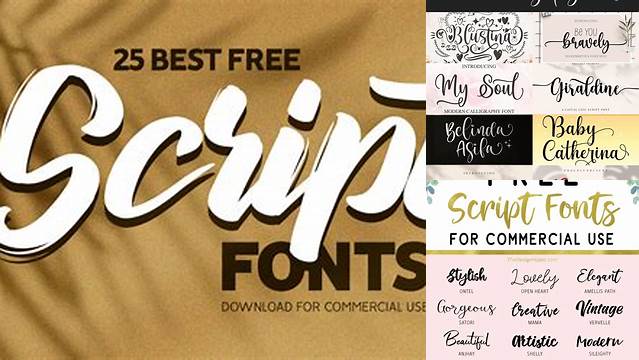
Download Amazing Free Script Fonts Today!
Hey guys! Looking for some awesome fonts to spice up your designs? You've come to the right place! I'm talking about free script fonts – those elegant, flowing, and oh-so-stylish typefaces that can transform your projects from drab to fab. Whether you're a seasoned designer, a budding enthusiast, or just someone who loves a good font, this guide is your treasure map to the best free script fonts the internet has to offer. We'll dive into where to find them, how to use them, and even some tips to make your designs pop. So, buckle up, buttercups, because we're about to embark on a font-tastic adventure! Let's get started and unlock the world of beautiful free script fonts ready for your download!
Choosing the Right Free Script Font for Your Project
Picking the perfect free script font for your project is a bit of an art form, but it's also super fun! The right font can make or break your design, so let's talk about how to choose wisely. First, consider the mood or tone you want to convey. A classic, elegant script might be perfect for a wedding invitation or a high-end brand, while a more playful, handwritten script could be great for a children's book or a casual social media post. Think about your target audience, too. Are you trying to reach a young, hip crowd or a more mature audience? The font should resonate with them. Also, think about readability. Script fonts can be beautiful, but they can also be difficult to read, especially in large blocks of text. Make sure your chosen font is legible, especially if you're using it for body text. Experiment with different fonts! Download a few options and try them out in your design. See how they look with your other design elements, like colors, images, and layout. Don't be afraid to mix and match fonts, but keep it simple. Using too many different fonts can make your design look cluttered. Consider the specific context of your project. Is it a logo, a website header, a poster, or something else? The font choice will depend on the project. Once you start to narrow it down, keep in mind that some script fonts are better for headlines, while others work well for shorter text snippets. Ultimately, the best font is the one that complements your design and helps you achieve your goals. So, guys, take your time, have fun, and trust your gut!
Matching Free Script Fonts with Other Fonts for Design Harmony
One of the trickiest aspects of design, particularly when working with free script fonts, is font pairing. It's about finding the right combination of fonts that complement each other and create a cohesive look. The goal is to create visual interest without overwhelming the viewer. Think of your script font as your star player, and the other fonts as the supporting cast. A classic approach is to pair a script font with a clean, sans-serif font. The script font adds elegance and personality, while the sans-serif provides readability and a modern touch. This combination works well for many projects. Another option is to pair a script font with a serif font. This can create a more traditional or sophisticated feel. Just be sure the serif font isn't too similar to the script font; you want contrast, not a clash. Another important aspect is size and weight. Use your script font for headlines, titles, and accents. Pair it with a clear and legible font for body text. This improves readability. Avoid using the same script font for everything. It's usually best to limit your use of the script font to one or two instances in your design. Use a font pairing tool to help you. There are many free online resources that can suggest font pairings based on your chosen script font. Lastly, always test your pairings. See how they look in your design and make sure they work well together. Experiment, and don't be afraid to try different combinations until you find the perfect match.
Utilizing Free Script Fonts in Logo Design
Free script fonts are often a popular choice for logo design, and for good reason! They can add a touch of elegance, personality, and sophistication that can make a brand stand out. However, using a script font in a logo requires careful consideration. Firstly, choose a script font that matches your brand's identity. A flowing, elegant script might be perfect for a luxury brand, while a more playful, handwritten script could be a good fit for a creative business. Make sure your chosen script font is legible, especially at smaller sizes. Your logo needs to be recognizable at various sizes, from a business card to a website header. Make sure the font is easy to read. Simplify the script font if needed. Logos often benefit from simplicity. If your script font is too intricate, it could become difficult to read. You can simplify the design by removing unnecessary flourishes or simplifying the letterforms. Consider the kerning. Kerning is the space between letters. Adjusting the kerning can improve the appearance of your logo, especially with script fonts, which can sometimes have uneven spacing. You can use kerning in your design software. Test your logo in different contexts. See how it looks on various backgrounds, in different sizes, and in different colors. Make sure it's versatile and adaptable. Remember to check the license of the free script font you're using. Make sure the font is allowed for commercial use if you're creating a logo for a business. If you're unsure, it's always best to seek professional design advice or consider commissioning a custom logo.
Best Practices for Pairing Free Script Fonts with Other Design Elements
Designing with free script fonts is a balancing act. The right font pairings are essential, but so are the other design elements. Let's dive into some best practices to ensure your designs look polished and professional. First, consider the color palette. The colors you choose will set the tone of your design, so make sure they complement your script font. A classic combination is a script font in a darker color (like black, navy, or deep green) paired with a lighter background color. Ensure you pick the right background color. Use high contrast for readability. The colors should make your text stand out. Also, consider the images. Use images that match the style of your script font. If you're using an elegant script, choose high-quality, professional images. If you're using a more playful script, consider fun and creative images. Also, consider the layout. The layout of your design should be clean and easy to navigate. Use a clear hierarchy to guide the viewer's eye. This will help draw attention to your script font. Another thing is whitespace. Don't be afraid of whitespace! It helps to create a clean and uncluttered design. It also helps your script font stand out. Whitespace, or negative space, gives the design breathing room. Lastly, keep it simple. Don't overcrowd your design. Sometimes, less is more. A simple design with a well-chosen script font can be incredibly effective. Remember to experiment and don't be afraid to try different combinations until you find something that works well. Keep your designs clean and simple.
Creating Visual Hierarchy with Free Script Fonts
Creating a visual hierarchy is crucial for guiding the viewer's eye and making your designs easy to understand, especially when using free script fonts. Visual hierarchy refers to the way you arrange design elements to indicate their importance. Here's how to use free script fonts to establish a strong visual hierarchy. Use your script font for headlines and titles. Because script fonts are often eye-catching and distinctive, they're perfect for drawing attention to the most important information. Make your headlines large and prominent, and use a different font style or weight to help them stand out. Make headlines stand out even more. Vary the size, weight, and color of your script font. Experiment with different styles to create contrast and visual interest. Ensure you have a consistent layout. Create a clear and consistent layout. Use headings, subheadings, and body text to organize your content. Use the script font sparingly. Limit the use of your script font to headlines and titles. Using it for everything can make your design look cluttered and difficult to read. Use a different font for body text. Choose a clear, legible font for body text. This is essential for readability, and it will help to make your script font stand out even more. The contrast between the script font and the body text is important. Consider spacing. Use spacing and alignment to create visual structure. Increase the space around your headings and titles to make them more prominent. Test and iterate. Try different layouts and arrangements to see what works best. Look at other designs and take inspiration. Remember, the goal is to guide the viewer's eye and make your design easy to navigate and understand.
Leveraging Free Script Fonts for Branding and Marketing Materials
Free script fonts can be powerful tools for branding and marketing materials, adding a touch of personality and elegance that can make your brand memorable. When using script fonts for branding, consistency is key. Use your chosen script font consistently across all your marketing materials, including your logo, website, social media posts, and print materials. This will help create a cohesive and recognizable brand identity. Make sure the font matches your brand's identity. A classic, elegant script might be a good fit for a luxury brand, while a more playful, handwritten script could be a good fit for a creative business. Use your script font to create a strong first impression. Use it for your logo, headlines, and other key elements. Make sure your font creates visual interest and draws attention to the most important information. Use your script font strategically. Avoid using it for body text, where readability is essential. Instead, use it for headlines, titles, and other key elements. It's essential to ensure your font is legible and easy to read. Consider how it will look in various sizes and contexts. Use your script font to create a consistent brand voice. Use it to create a consistent brand voice that is unique to your brand. Test your marketing materials. See how they look on different platforms and in different formats. Make sure your script font works well in all situations. Be sure to adhere to licensing guidelines. If using a free script font, make sure you adhere to the licensing guidelines, especially for commercial use. Your brand must reflect your values. With these techniques, you can create amazing marketing materials.
Addressing Readability Challenges with Script Fonts
Free script fonts are undeniably beautiful, but they can sometimes pose readability challenges. Because of their elaborate curves and flourishes, script fonts can be tricky to read, especially in long blocks of text. Here's how to address those challenges and ensure your text is accessible and easy to read. Choose the right font. Not all script fonts are created equal. Some are more legible than others. Look for script fonts that have clear letterforms and avoid fonts that are overly ornate or difficult to decipher. Consider the size. Make sure your script font is large enough to read easily. In general, it's best to use script fonts for headlines and titles, where they can be displayed at a larger size. Avoid long text. Because script fonts can be difficult to read, it's best to avoid using them for long blocks of text. If you need to include a lot of text, use a different font for the body text. Consider the context. Make sure your script font is appropriate for the context. If you're creating a formal document, a more elegant script might be appropriate. Choose a font that matches the style and purpose of your document. Pay attention to spacing. Make sure your font has good letter spacing. In some cases, you may need to adjust the kerning (the space between letters) to improve readability. Test your design. Before you finalize your design, test it to make sure it's readable. Print it out or view it on different devices to make sure the text is clear and legible. Be mindful of contrast. Make sure there's good contrast between the text and the background. Dark text on a light background or light text on a dark background is generally the most readable. Be selective. Use script fonts sparingly. Use them for headlines, titles, and other key elements. Don't overuse them, or your design may become cluttered and difficult to read. By following these tips, you can enjoy the beauty of free script fonts while ensuring your text is readable and accessible to your audience.
Enhancing Readability: Font Size, Spacing, and Kerning
Let's get specific about improving the readability of your free script fonts! Font size is key! As mentioned before, because of their complex forms, script fonts benefit from larger sizes. Use a larger font size for headlines and titles than you would for a more straightforward font. Ensure that your font has enough space around it. Adequate spacing between lines (leading) and letters (kerning) is crucial for readability, especially with script fonts. Increased spacing can make the text more readable. Adjusting kerning can also improve readability. Kerning refers to the space between individual letters. Sometimes, script fonts have uneven spacing, which can make them difficult to read. Experiment with kerning to find the optimal spacing. Also, choose the right font weight. Bold or heavy font weights can make script fonts more legible, especially at smaller sizes. Avoid light weights. Test it! Always test your font in your design before finalizing it. Print out your design or view it on different devices to make sure the text is easy to read. Be mindful of contrast. The contrast between the text and the background is crucial for readability. Use a dark text on a light background or a light text on a dark background. Optimize letterforms. Some script fonts have complex letterforms that can make them difficult to read. Consider choosing a script font with clearer letterforms, and make sure that the letterforms are not too elaborate. Consider the style. Some script fonts are more readable than others. Before you finalize your design, choose a script font that you know is easy to read. Keep it simple. When you're using script fonts, keep it simple. Avoid overcrowding your design or using too many different fonts. Finally, when in doubt, err on the side of caution and choose a more legible font. Remember, the goal is to ensure your message is easy to read and understand.
The Impact of Backgrounds on Script Font Readability
The background you choose can significantly impact the readability of your free script fonts. The right background can make your text pop, while the wrong one can make it disappear. The most important thing is contrast. High contrast between your font and the background is crucial for readability. A dark font on a light background (or vice versa) generally works best. Avoid busy backgrounds. Avoid using backgrounds that are too busy or have too much detail, as they can make the text difficult to read. Instead, use a solid color, a simple pattern, or a blurred image. Use a consistent background. If you're creating a series of designs, use a consistent background to create a cohesive look. This helps to maintain a consistent visual identity. Choose the right color. The color of your background should complement the color of your text. Choose a color that makes your text stand out, but be careful not to use colors that clash or are visually distracting. A common and safe approach is to use a dark background with a light font, or a light background with a dark font. Be mindful of textures. Textured backgrounds can add visual interest, but they can also make text difficult to read. If you use a textured background, make sure the texture is subtle and doesn't interfere with the text. Test it. Always test your design on different backgrounds and devices to make sure your text is legible in all situations. If you're having trouble with readability, try adjusting the background color or adding a drop shadow or outline to your text. White backgrounds are often a safe bet because they give great contrast. Remember, the goal is to make sure your message is easy to read and understand.
Free Script Fonts for Various Design Projects
Okay, so you know where to find free script fonts and how to use them – but which ones are best for your specific project? Let's explore some font recommendations for different design needs. For wedding invitations, look for elegant and classic script fonts. These fonts should look timeless and sophisticated, perfect for setting the tone for a special day. Think about fonts with flowing curves and delicate details. For logos and branding, choose versatile fonts that represent your brand. Consider legibility and memorability. You should choose fonts that are clear, and easy to recognize. For website headers, use fonts that are eye-catching and easy to read. Choose fonts that complement your overall website design. Ensure your chosen font is not distracting. For social media graphics, try playful and modern script fonts. These fonts will look great on social media. Consider fonts with a handwritten style or a unique design. For greeting cards, use fonts that convey a friendly and personal touch. Look for fonts that are fun and cheerful. For posters and flyers, use bold and impactful fonts that grab attention. Choose fonts that are easy to read from a distance. Make sure your font can capture people's attention. For print materials, use fonts that are professional and readable. Choose fonts that are optimized for print and easy to read. With the right font, the design will look even better. The versatility of free script fonts allows you to bring your creative visions to life!
Script Fonts for Wedding Invitations and Stationery
Wedding invitations and stationery are perfect for showcasing the elegance of free script fonts. When choosing a font for these projects, consider fonts with classic styles that reflect the formality and romance of a wedding. A popular choice would be elegant and flowing fonts. These fonts have delicate curves and intricate details that evoke a sense of sophistication and beauty. Also, think about readability, because the invitations need to be easy to read. Make sure the font is clear and legible. Choose a script font that is easy to read. Pair your script font with a complementary font. Pairing your script font with a clean sans-serif or classic serif font will ensure that your invitation is balanced and aesthetically pleasing. Consider the design, such as monograms, calligraphy, and custom designs, which can enhance the visual appeal of your invitations. Use a font that is appropriate for the wedding style. If the wedding is formal, choose an elegant script. If the wedding is more casual, you can select a script font that's a bit more relaxed. Finally, before you finalize your designs, test the font on different paper stocks and in different sizes to make sure it looks great. Ensure your invitations are perfect, so that the special day starts off great!
Script Fonts for Logos and Branding Design
Free script fonts can be a fantastic choice for logo and branding design, adding a touch of personality and elegance that can make a brand stand out. When choosing a script font for your logo, consider the brand's identity. Does your brand have a classy or elegant style? Choose a script font that matches your brand's identity. Make sure the font is legible. A logo needs to be recognizable at various sizes, from a business card to a website header. Ensure the font is easy to read. Consider the unique brand voice. A brand voice is what makes a brand memorable. Choose a font that helps to create the unique brand voice. Experiment with different options. Try out different script fonts to see which one works best for your brand. Consider the versatility of the font. The font needs to be versatile and easy to use in different contexts. This means ensuring that the font looks good in different sizes and styles. Also, consider the licensing of the free script font. Make sure the font is allowed for commercial use if you are creating a logo for a business. Get feedback. Before you finalize your logo, get feedback from others to make sure it conveys the right message and is aesthetically pleasing. Make sure that the font does not get in the way of your business.
Script Fonts for Websites and Digital Content
Free script fonts can be used for websites and digital content. Choosing the right script font will help you engage your audience. When choosing a script font for your website, consider readability. Use script fonts for headlines and titles where they can be displayed at a larger size. Make sure the font is clear and legible, so that it's easy to read for your audience. Complement your website's overall design. The font should complement your website's overall design. Make sure the font complements the style and the theme of your website. Use the font strategically. Avoid using script fonts for long blocks of text, as they can be difficult to read. Use the script font sparingly. Use a different font for body text. Choose a clean, legible font for body text. This is essential for readability. Consider the context. The font must be appropriate for the context. Consider the tone and the style of your website. Test it. Always test your design on different devices to make sure it looks great. Optimize for different screens. Make sure your website is optimized for different screen sizes. Always choose a responsive design. Adhere to license terms. Make sure that you adhere to the license terms. If you adhere to these terms, you will have success. With the right font, you can elevate your website's look and appeal to a broader audience.
Tips for Using Free Script Fonts Effectively
Alright, you've got your free script fonts, you've got your design software, and you're ready to go! Here are some pro tips to help you use those fonts effectively and create stunning designs. First off, think about kerning. Kerning is the spacing between letters, and it can dramatically affect the look of your text. Adjust the kerning to ensure your script font looks balanced and legible, paying special attention to any overlapping or awkward letter combinations. Play with the size. Experiment with the size of your script font. A larger font can look more elegant and impactful, while a smaller font can be more subtle. Find the size that works best for your design. Be mindful of the contrast. Use a strong contrast between your script font and the background. This will make your text stand out and be easier to read. Black text on a white background is a classic, but don't be afraid to experiment with other color combinations. Balance. Balance is key to a great design. Balance your script font with other design elements, such as images, colors, and layout. Try to avoid overcrowding your design. Experiment with different styles. Try different styles to see what works best. Don't be afraid to experiment. Finally, embrace white space. Use plenty of white space, or negative space, around your script font. This will help it stand out and make your design look clean and professional. With a little practice and some helpful tips, you'll be creating gorgeous designs in no time!
Avoiding Common Mistakes with Script Fonts
Even experienced designers make mistakes, so let's cover some common pitfalls to avoid when using free script fonts. Avoid using script fonts for body text. Script fonts are generally not ideal for long paragraphs of text, as they can be difficult to read. Save the script font for headlines, titles, and other short bursts of text. Avoid overcrowding. A design with too many elements can look cluttered and amateurish. Keep your design clean and simple. If you're using a script font, give it plenty of space to breathe. Choose your colors carefully. The right color combination can make or break your design. Use colors that complement your script font. A good starting point is a dark font on a light background or a light font on a dark background. Avoid using too many fonts. Stick to a maximum of two or three fonts in your design. Pair your script font with a clean, easy-to-read font for body text. Ensure your font is readable. Ensure that your script font is readable, especially at smaller sizes. Choose a font with clear letterforms and avoid overly ornate or elaborate scripts. Always check the license. Always check the license to ensure that you can use the font for your intended purpose. Some fonts are only available for personal use. Test your design. Test your design on different devices. Make sure your design looks good and that the text is easy to read. Avoid these mistakes, and you'll be well on your way to designing with free script fonts like a pro!
Mastering the Art of Font Combinations for Script Fonts
Mastering font combinations is an art form, especially when you're working with free script fonts. The goal is to create a harmonious and visually appealing design, and choosing the right font pairings is a great way to do that. Start with a simple approach. If you're new to font pairing, start simple. Pair your script font with a clean sans-serif font. The script font adds a touch of elegance and personality, while the sans-serif font provides readability and a modern touch. Consider the mood or the tone. Consider the mood or tone that you want to convey. For a more elegant look, pair your script font with a serif font. For a more casual look, you can try a more relaxed combination of fonts. Make sure to create contrast. Create contrast in your design by pairing a bold script font with a lighter, more subtle font. Consider the weight. Vary the font weight in your design. If you have a bold script font, pair it with a lighter font for the body text. There are lots of options. Test your design in different contexts. See how the font combinations look in various contexts. Test your design on different devices. Don't be afraid to experiment with different combinations until you find the perfect match. With the right font combination, you can achieve your design goals.
Optimizing Script Fonts for Different Media and Platforms
Adapting your free script fonts to different media and platforms is crucial for ensuring your designs look their best across various devices. When designing for print, ensure your script font is high-resolution. High-resolution fonts will print clearly. Ensure the font's crisp appearance and readability on paper. When designing for the web, consider the font's loading time. If your script font is too large, it can slow down your website's loading time. Optimize your fonts for the web by choosing web-safe fonts. Use a format like TTF or OTF. Ensure the font displays correctly across different browsers and devices. For social media, consider the platform's design guidelines. Design for the platform. If you are using a script font for social media, ensure the font is legible. Make sure the font looks great on smaller screens. Test it out. If you are using a script font for video, consider the animation. Ensure the font is animated well, and make sure your video is easy to read. Ensure your designs are easy to see on any device. Adapt your script fonts to these various platforms, and you'll have a great design.